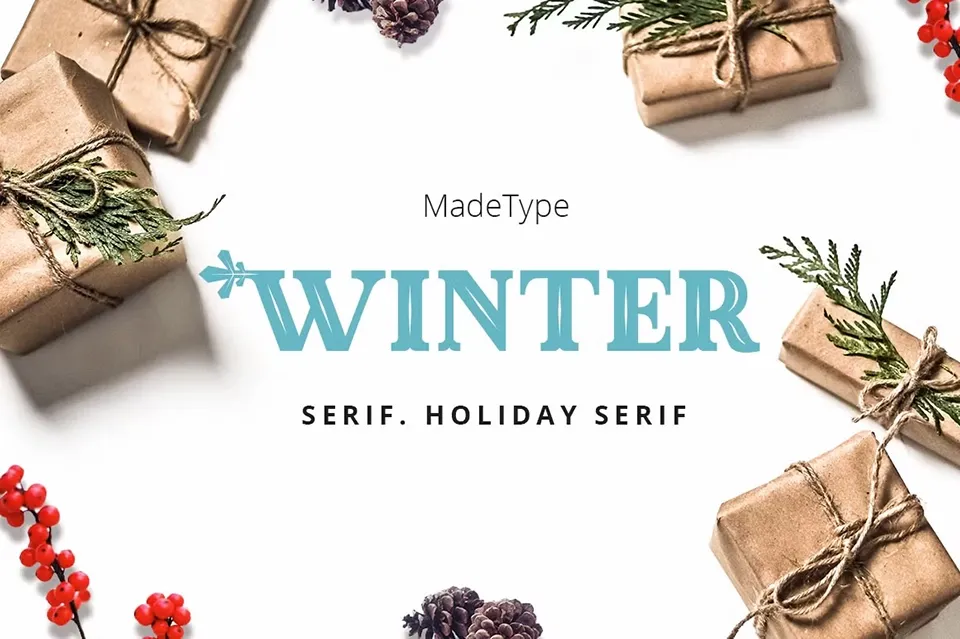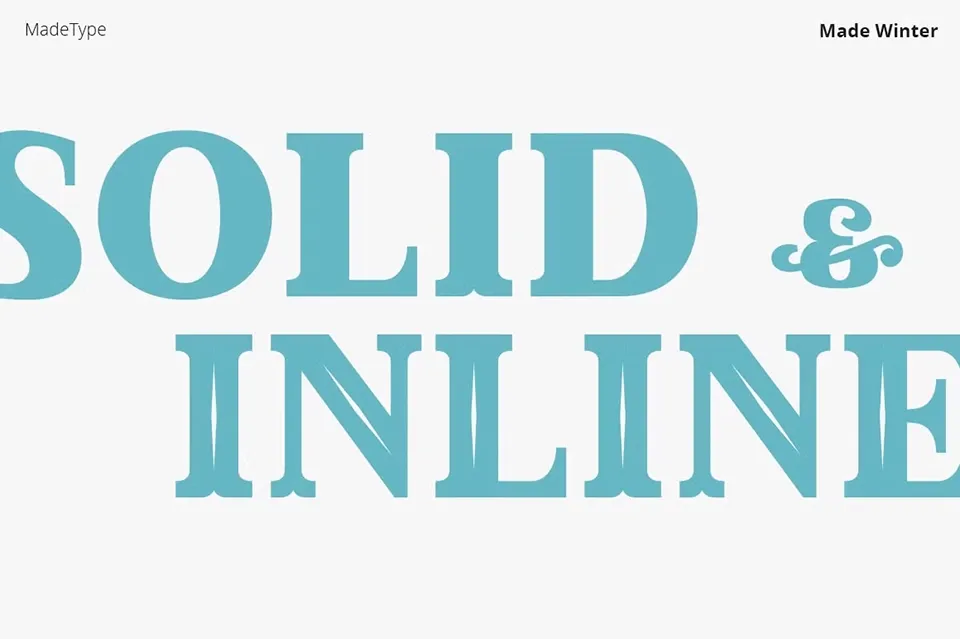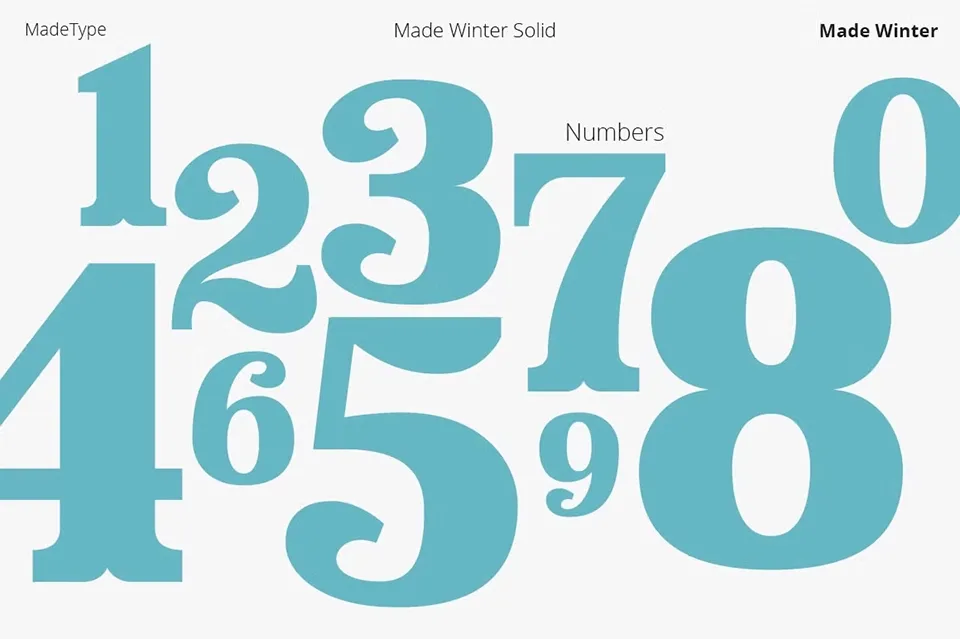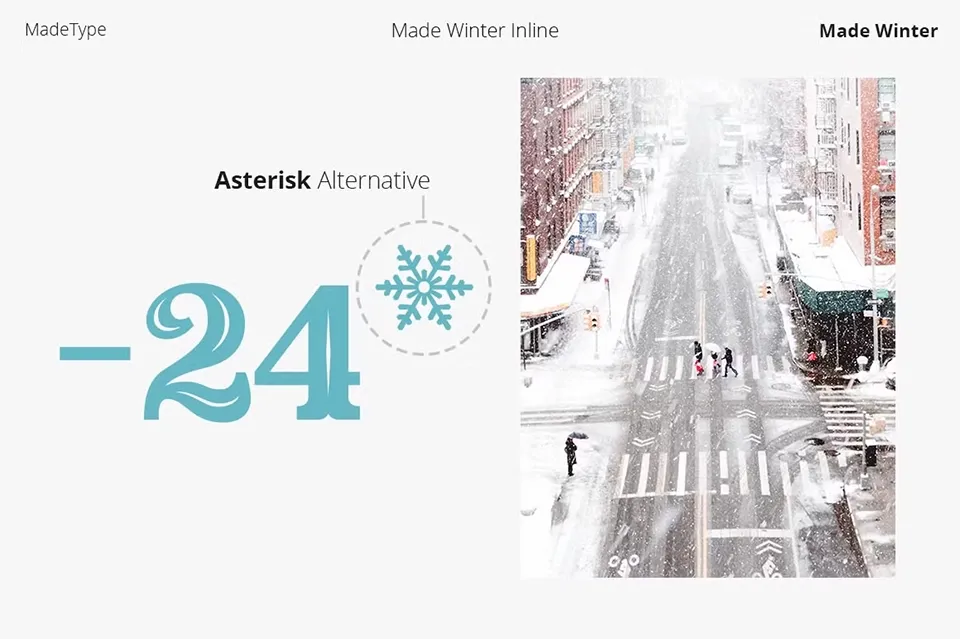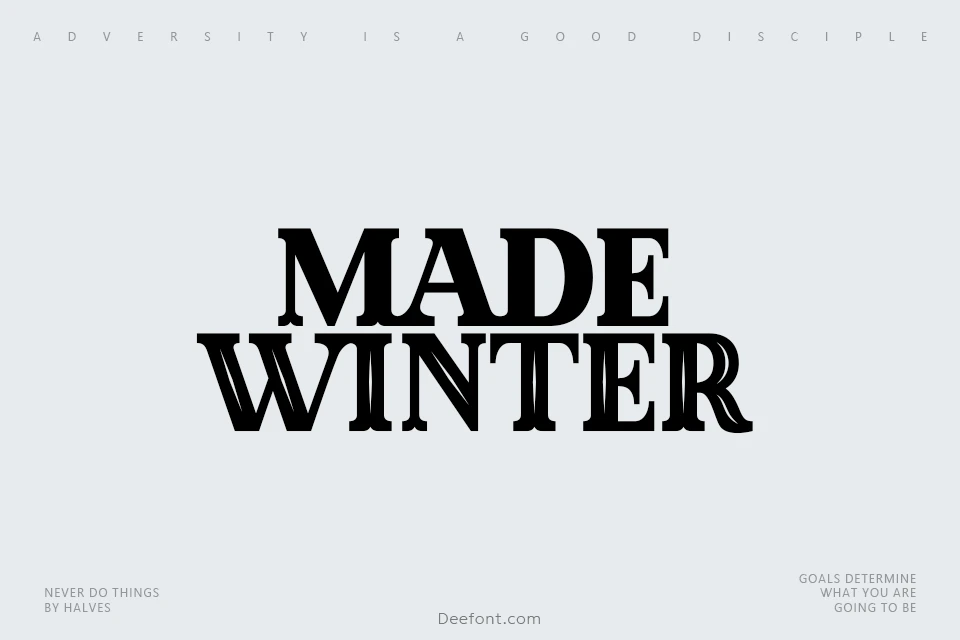
MADE Winter Font
MADE Winter Font is a festive serif font inspired by the holiday season, perfect for New Year’s designs and winter-themed creative projects. With its elegant yet playful style, it is well-suited for headlines, short texts, postcards, calendars, magazines, books, and logos. The font family includes two styles-Solid and Inline-offering versatility for various design needs. MADE Winter Typeface features uppercase letters, numbers, punctuation, multilingual support, and Cyrillic characters, making it a comprehensive choice for both personal and professional use.